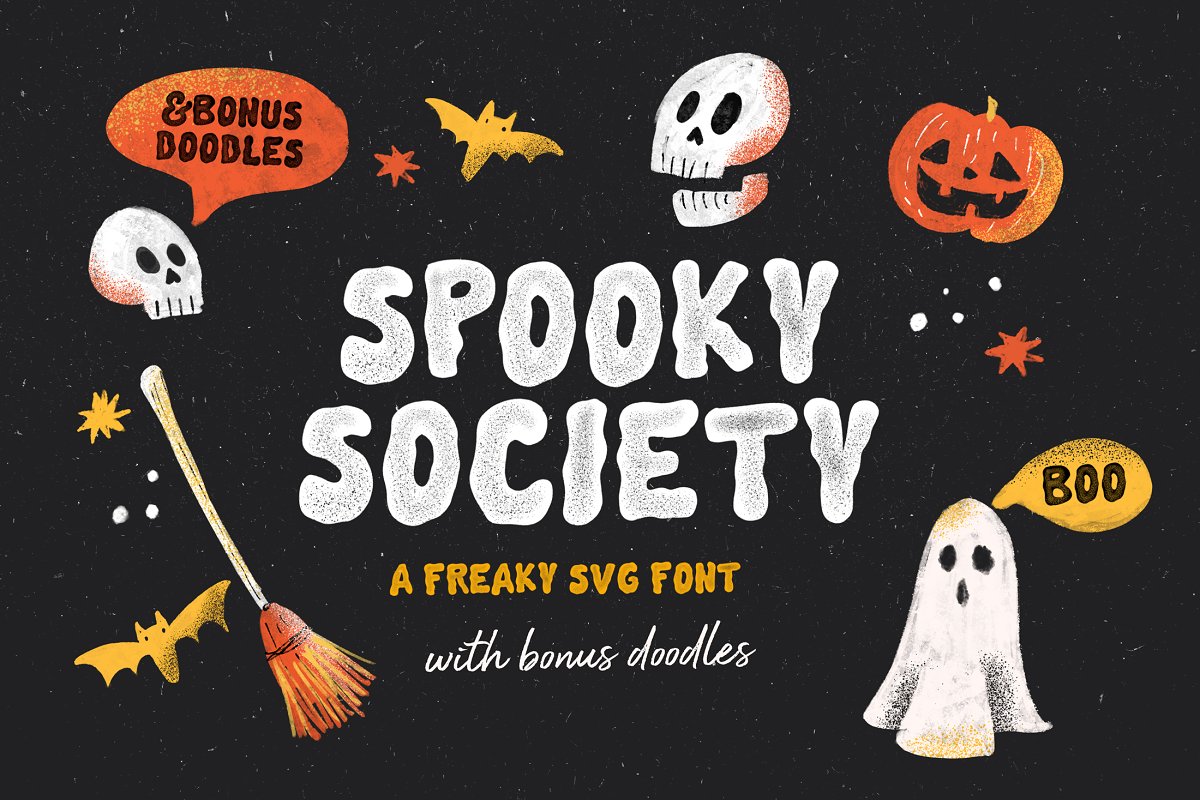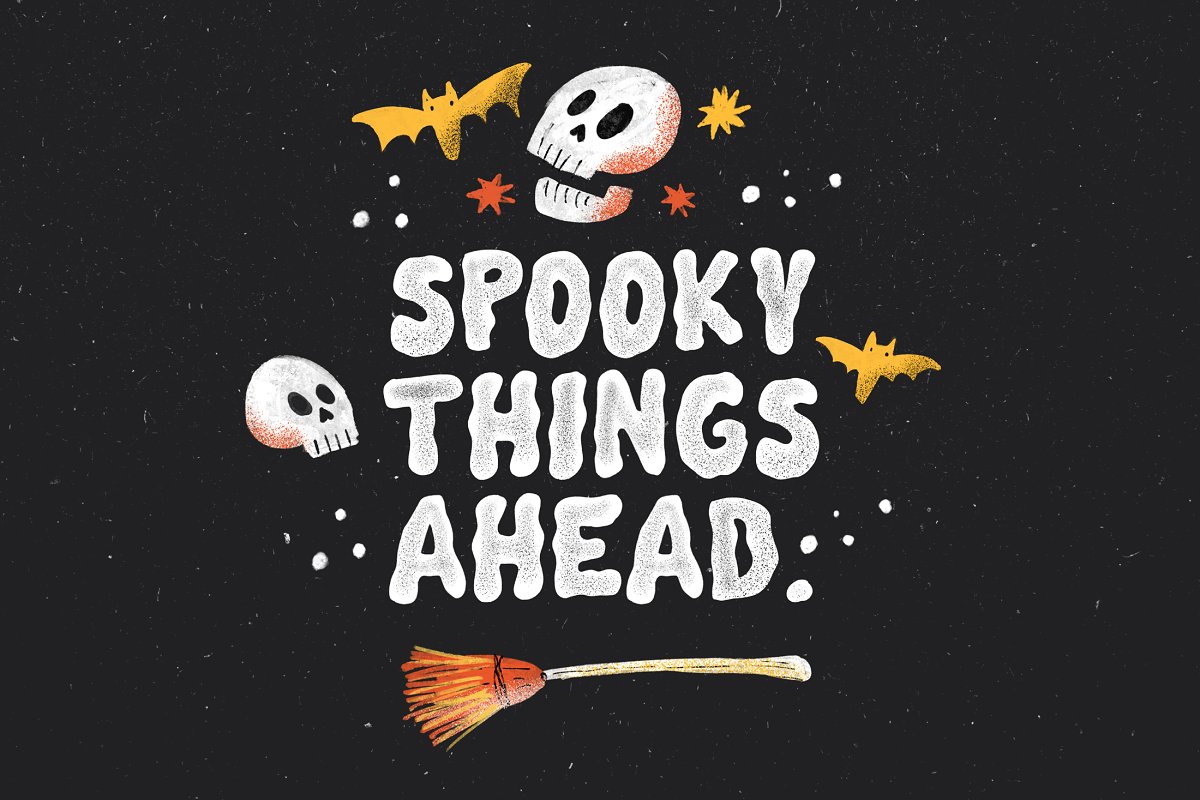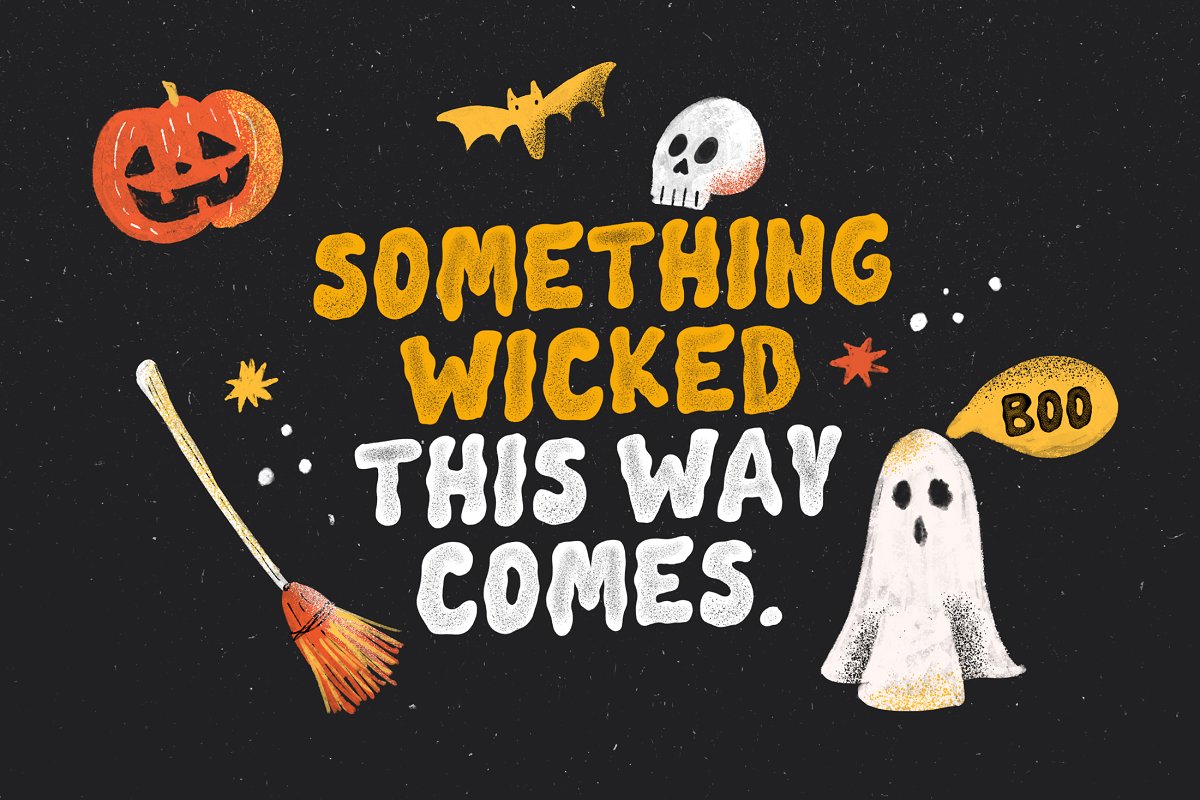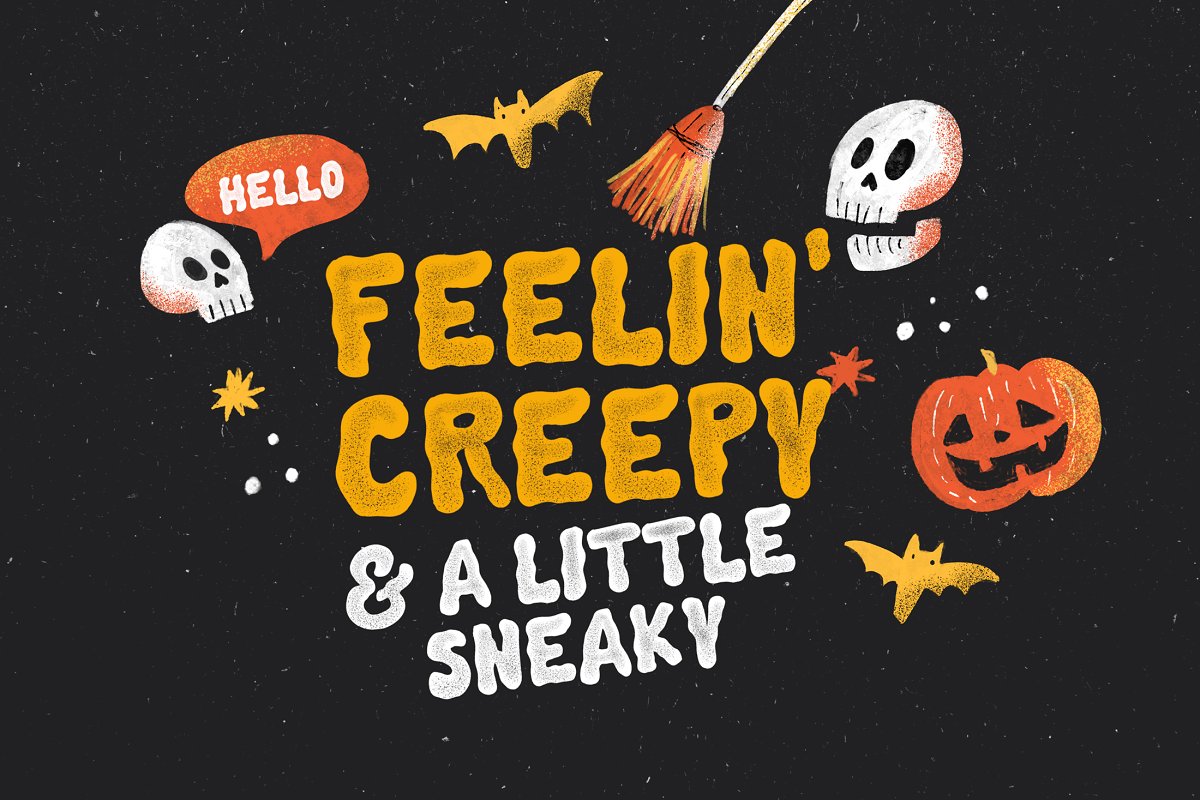
About the Spooky Society SVG Font
Just in time for your halloweeny projects hopefully :)Say hello to Spooky Society! A ghoulish, and fun all caps Bitmap SVG font with built-in speckly texture, A Regular Solid version of the font is also included for you, The doodles used in these preview have been included for you free :)Software requirements : The SVG format requires Photoshop CC 2017 or Illustrator CC 2018 (or newer)